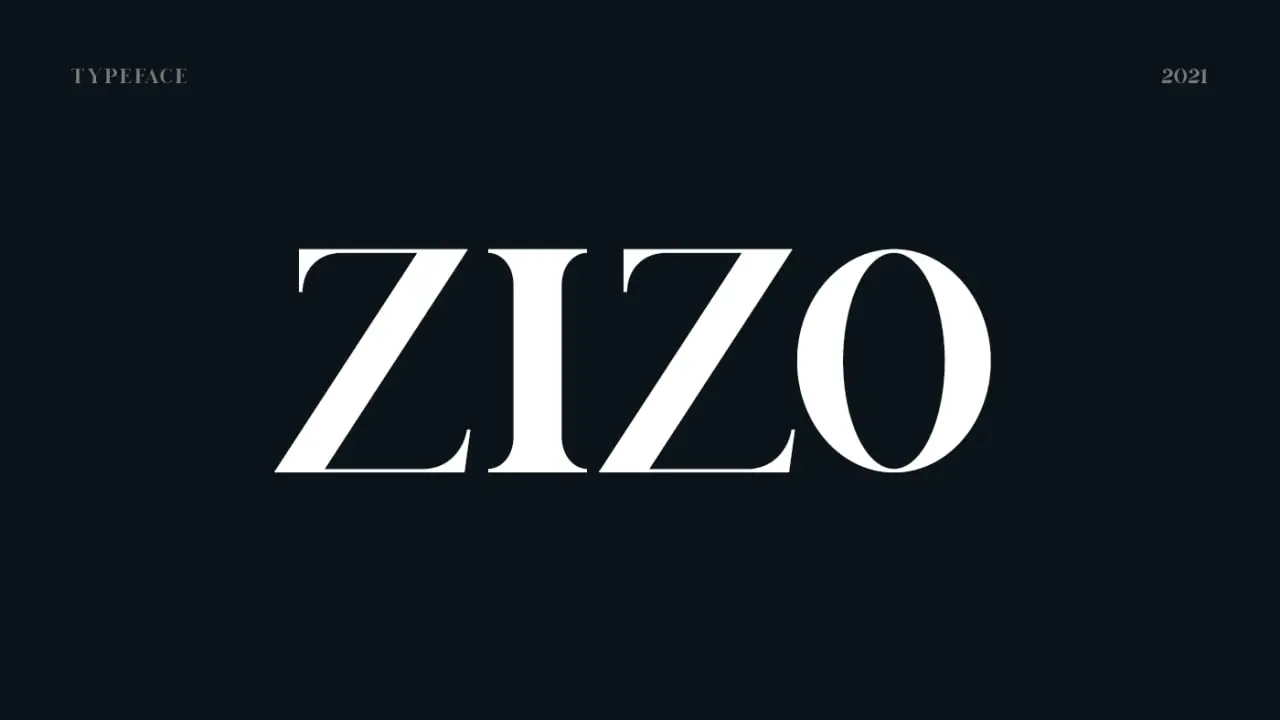
Zizo Font
The Zizo Font is a modern and versatile typeface designed to elevate your design projects. With its clean lines and contemporary aesthetic, this font is perfect for a variety of applications, including branding, logos, web design, and print materials.
• Multiple weights for flexibility
• Stylish uppercase and lowercase letters
• Numerous special characters and glyphs
Utilize the Zizo Font for creating eye-catching headlines, engaging social media graphics, or elegant invitations. Its versatility makes it a great choice for both digital and print projects.